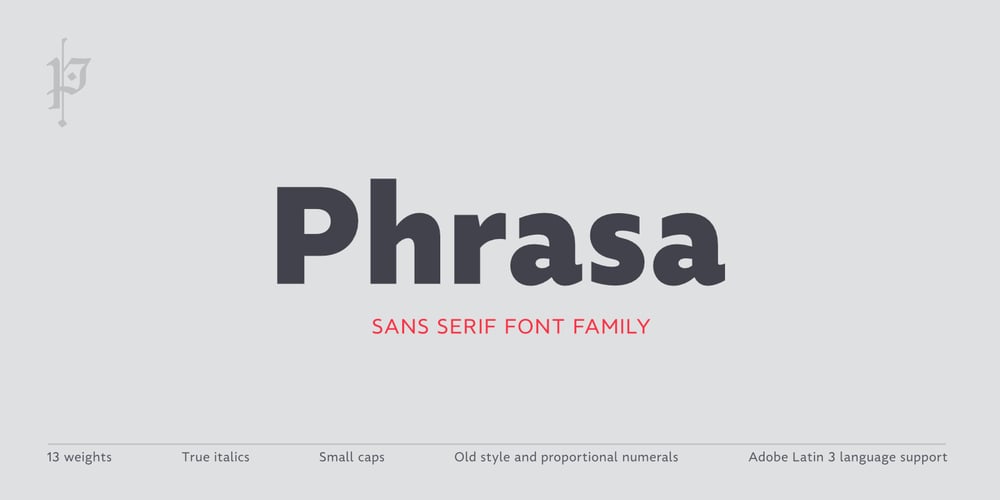
Phrasa Font Family was designed by Piotr Łukaszkiewicz and published by Arrière-garde. Phrasa contains 26 styles and family package options. Phrasa is a robust humanist sans-serif typeface family which will carry you through most of your design needs. Designed for legibility, she truly shines in running text. However her solid (yet elegant) construction allows for usage in such settings as branding or signage. Phrasa’s most prominent features are: 13 weights, from hairline to black Moderate x-height Large apertures Modern capitals proportions Designed for readability… … without sacrificing good looks True Italics Small capitals Adobe Latin 3 language range Cyrillic alphabet Old-style and tabular figures The idea behind Phrasa was to create a stylish typeface but with legibility in mind. The inspiration came from history, namely from two of the most legible typefaces known: Garamond and Gill Sans. The new typeface boasts a smooth, easy-on-the-eyes texture which allows the reader to simply sink into the text. It also posses a set of true italics to compliment it. Phrasa has a broad linguistic range, spanning from extended latin alphabet to cyrillic.